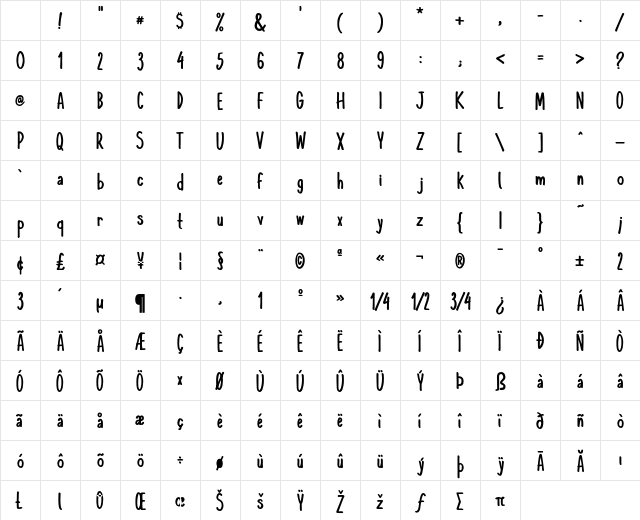
Complete KomixCon Bold glyph index. Displaying only characters natively supported by KomixCon Bold font.
KomixCon is a composed and adaptable typeface that performs quietly and consistently across a wide range of design contexts. Its bold stroke weight gives it real presence on the page.